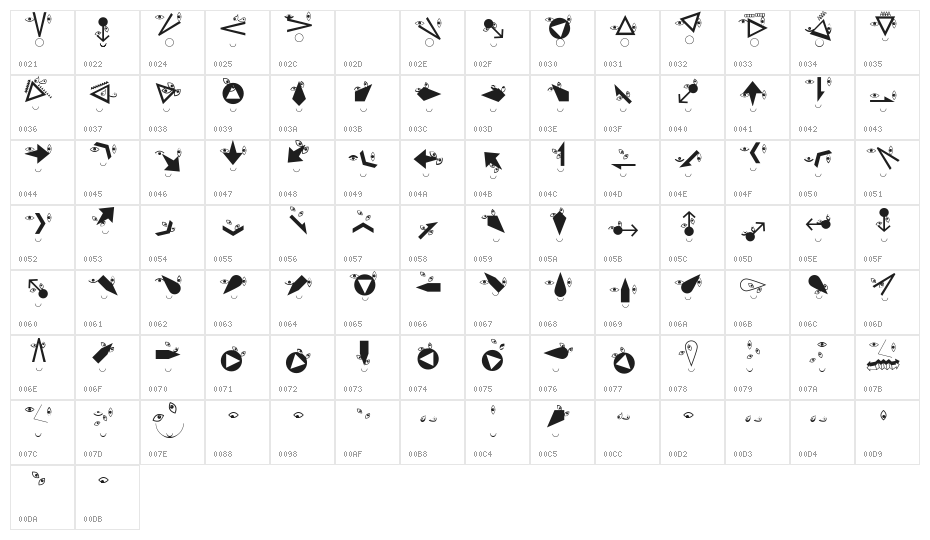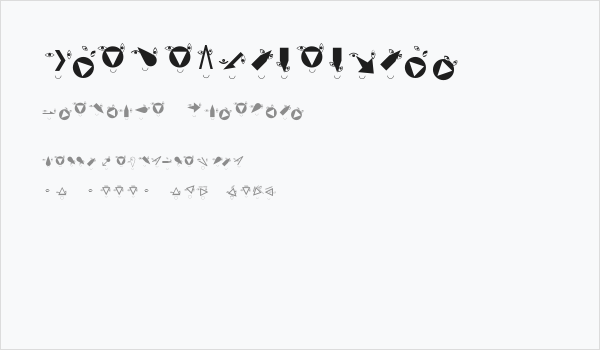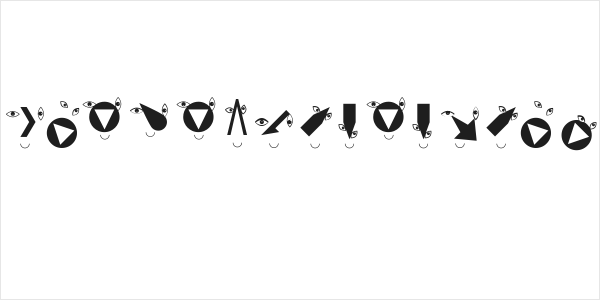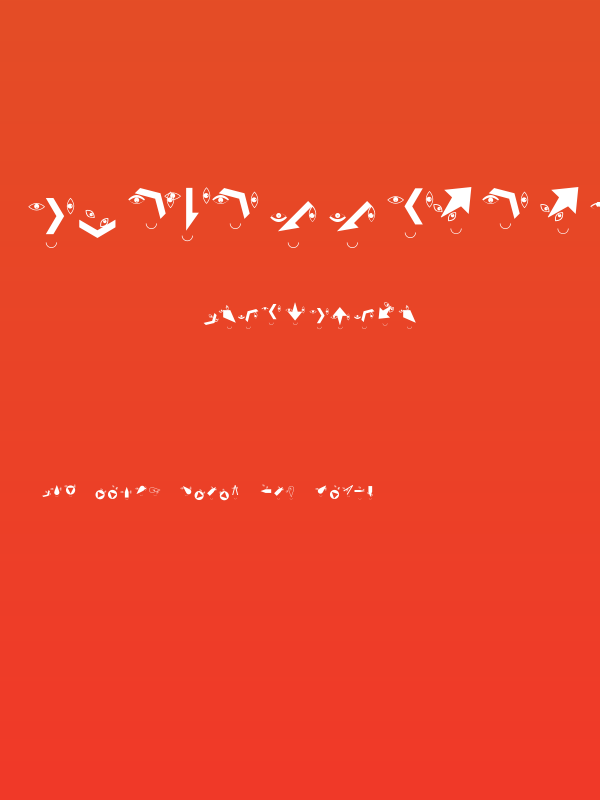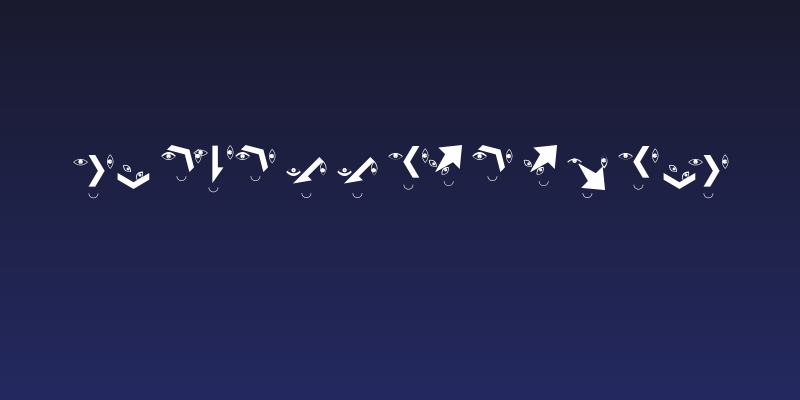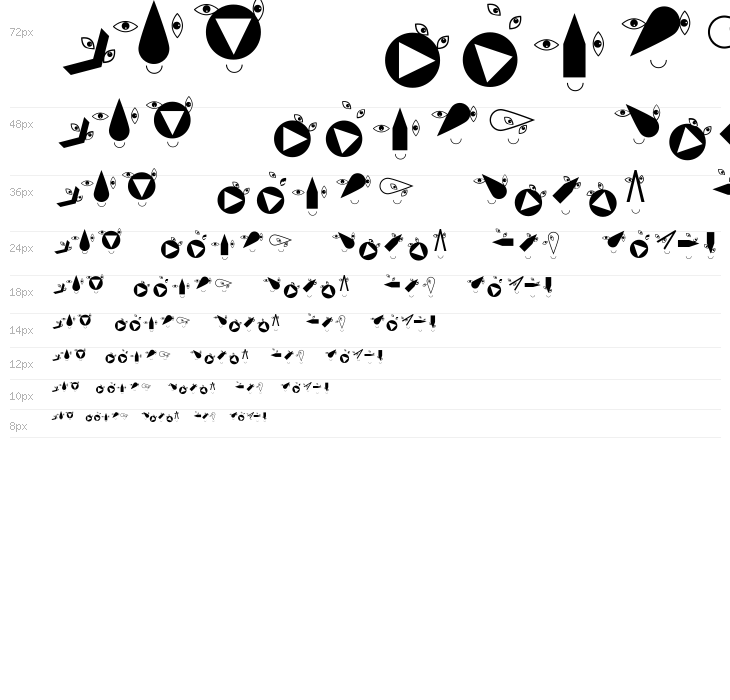
RuebenNosesFour Font
RuebenNosesFour Description
This font is a whimsical and playful design that incorporates abstract shapes and elements resembling faces. Each character is uniquely crafted with geometric forms, such as triangles and circles, combined with small details like eyes and smiles, giving the font a lively and animated appearance. The characters are bold and distinct, making them stand out with a strong visual impact. The overall style is highly decorative, with a focus on creativity and artistic expression. This font is not suitable for traditional text but rather for artistic and expressive projects where visual flair is desired.
| Use Case | Logos, Posters, Artistic projects |
| Proposed Projects | Ideal for creative projects, children's books, playful branding, and artistic posters. |